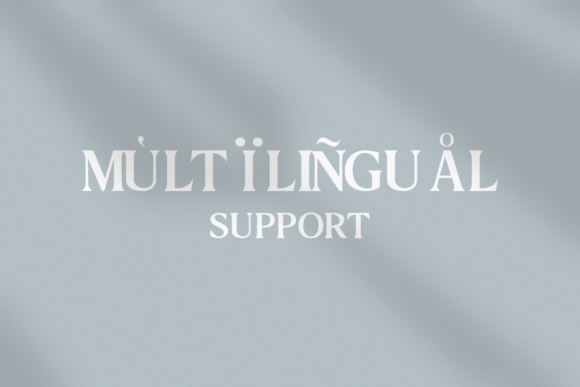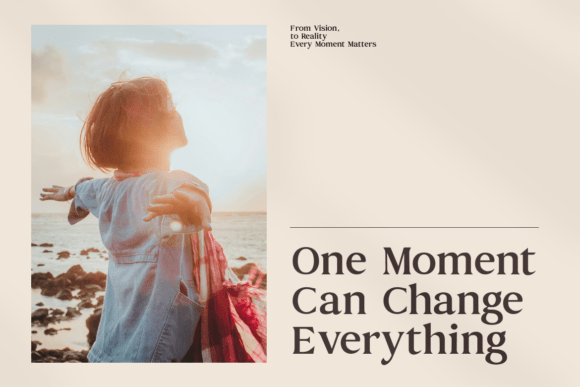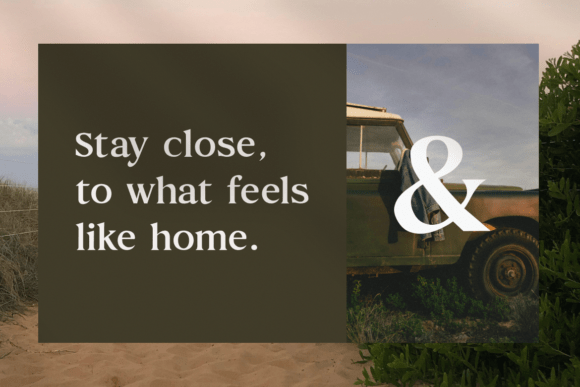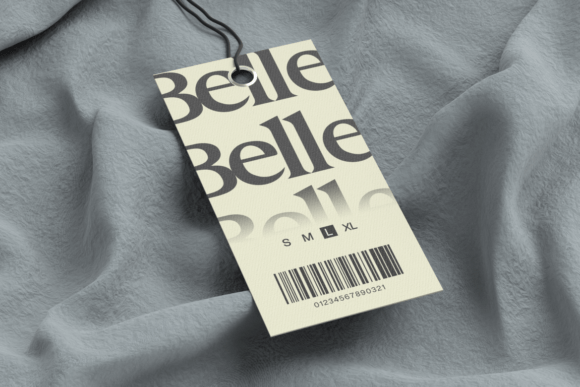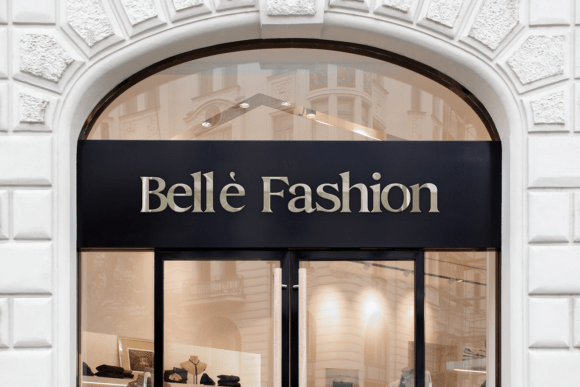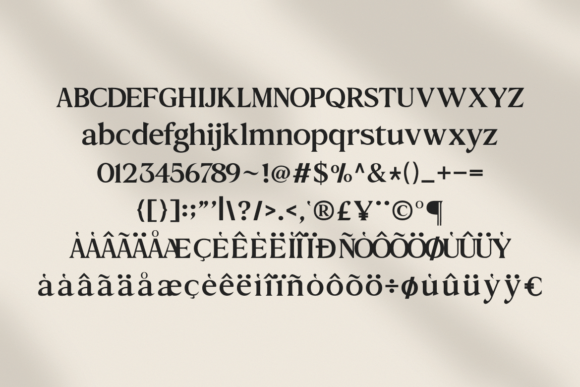
The Elusive Font: A Designer’s Quest for Elegance
I still remember the countless hours I spent searching for the perfect font for a high-end fashion boutique project. My client wanted a logo that exuded sophistication, elegance, and a touch of modernity. I scoured the internet, tried out numerous fonts, but nothing seemed to fit the bill. That was until I stumbled upon Ephira Font. ✨
In this article, I’ll share my experience with Ephira, a refined serif typeface that has become a staple in my design toolkit. I’ll cover its features, what I love about it, some quirks, and provide a practical guide on how to use it. Whether you’re a designer, crafter, or creative hobbyist, you’ll find this article informative and helpful.
Ephira Font: A Comprehensive Review
What I Love About Ephira
- ✨ Timeless Elegance: Ephira’s serif design is both classic and sophisticated, making it perfect for upscale branding and editorial layouts.
- ✅ Multilingual Support: With full multilingual support, Ephira is ideal for projects that require clarity across languages and cultures.
- 💡 Modern Versatility: Ephira’s versatility makes it suitable for various design applications, from logos and packaging to signage and digital design.
- 📚 Graceful Letterforms: Ephira’s letterforms are carefully crafted to provide a polished and refined look.
While Ephira is an excellent font, there are a few minor quirks to be aware of:
- 🤔 Limited Condensed Styles: Ephira’s condensed styles are limited, which may make it less suitable for projects requiring extremely narrow text.
- ⚠️ Glyph Complexity: Some glyphs may appear complex or intricate, which could affect legibility at small font sizes.
- Experiment with OpenType features, such as stylistic alternates, to add visual interest to your text.
Ephira was designed with the goal of creating a refined, elegant serif font that blends timeless sophistication with modern versatility. Inspired by classic typography and modern design trends, Ephira’s creator aimed to craft a font that would excel in various design applications, from upscale branding to editorial layouts.
Q: What is Ephira Font?
Ephira is a refined serif typeface designed for upscale branding, editorial layouts, fashion boutiques, and lifestyle campaigns.
Q: What languages does Ephira support?
Ephira has full multilingual support, making it suitable for projects that require clarity across languages and cultures.
Q: Is Ephira suitable for body text?
While Ephira is elegant and refined, it may not be the best choice for body text due to its serif design and potential complexity at small font sizes.